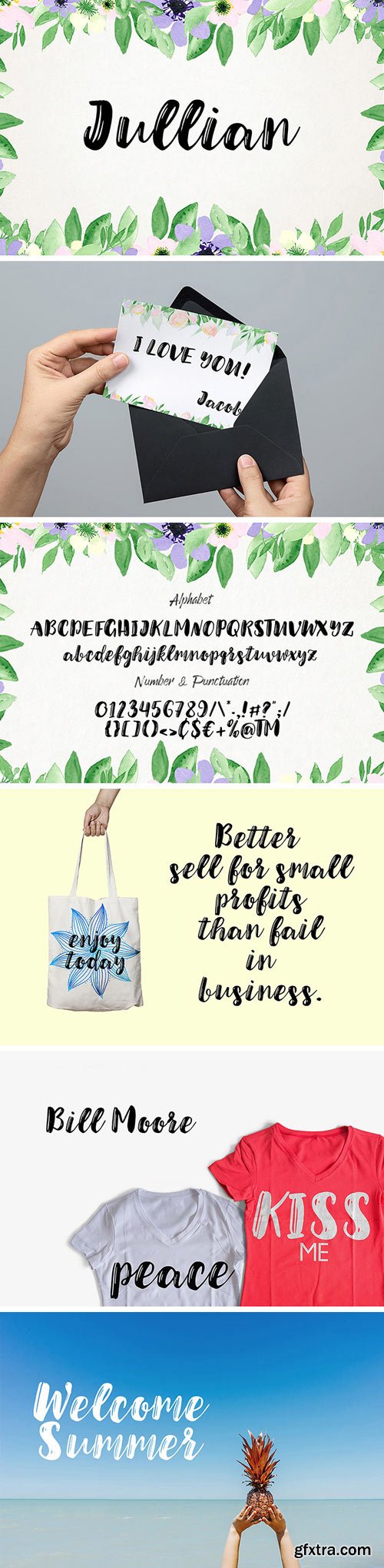
Julian Script Typeface
From ordinary stuff to masterpieces! We invite you to discover a tender, yet so ecstatic typeface, bringing some light aura of aerial watercolors. Beautifully crafted lettering is gonna complement your artwork with an artistic touch, luckily it contains everything you may need for that: lowercase and uppercase letters, punctuation, and numerals.